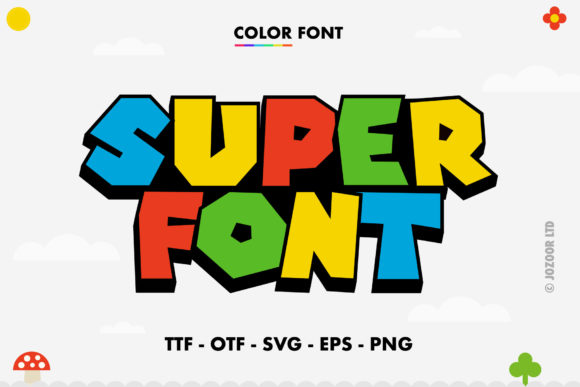
Introducing Super Font - the colorful font family created by Jozoor! Super is not just any ordinary font, it's cool, thick lettering, and fun color makes it the perfect choice for adding some vibrancy to your designs.
This PUA encoded font allows for easy access to all glyphs and swashes, providing you with endless possibilities for creating stunning designs that will leave your audience in awe. Whether you're designing a logo, poster, or social media post, Super Font is a must-have for any creative project.
Using Super Font means standing out from the crowd with eye-catching and engaging designs that will captivate your audience. It's perfect for creating bold and attention-grabbing headlines or adding a touch of personality to your branding.